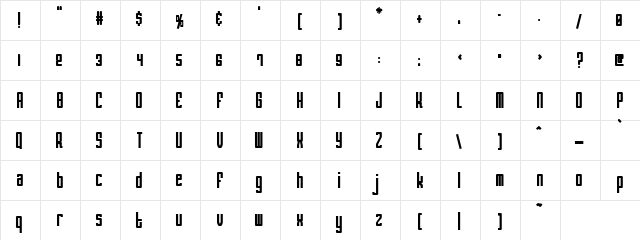
christline Regular
christline takes a measured approach to typography — its balanced proportions and neutral character make it a reliable workhorse for both digital and print work.